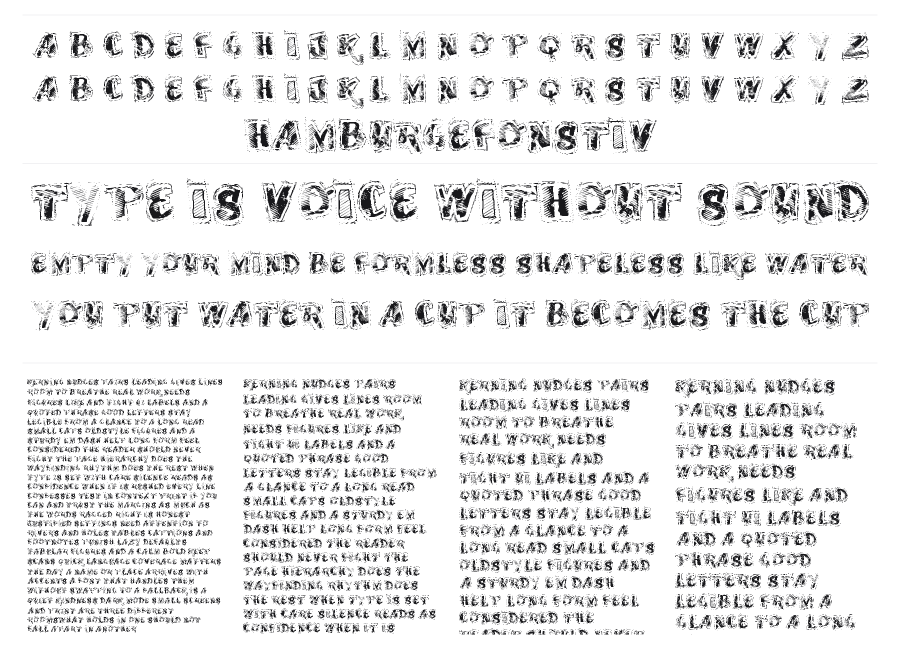
VTKS Scrubbled
VTKS Scrubbled is a bold display font where every character is filled with dense scribble and crosshatch markings, giving the impression of letters someone hastily sketched over with a pen. The chunky, wide forms hold the texture together at large sizes, keeping it readable while staying aggressively rough. It carries genuine graphic energy without feeling polished.